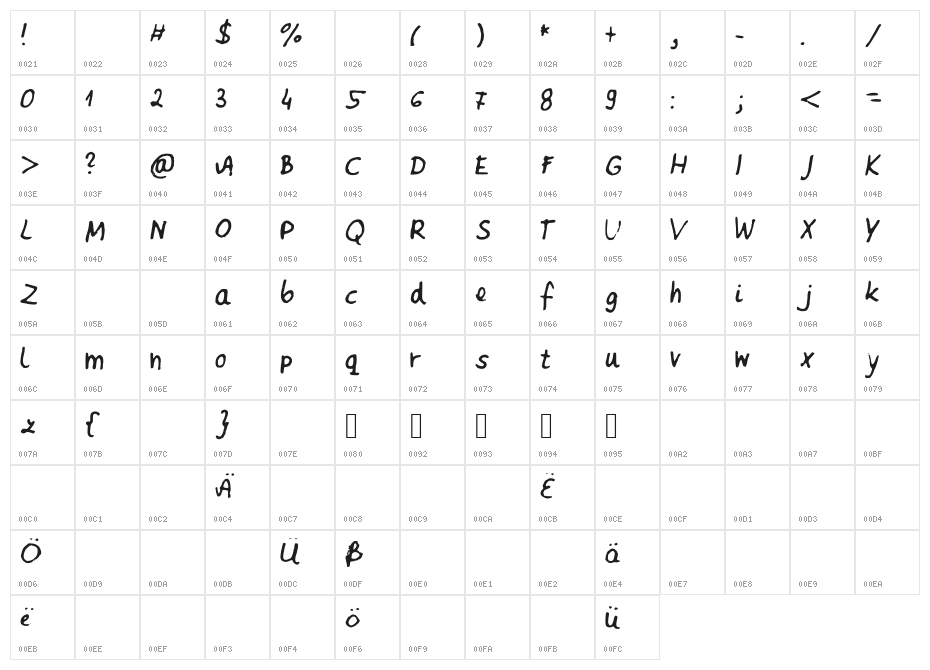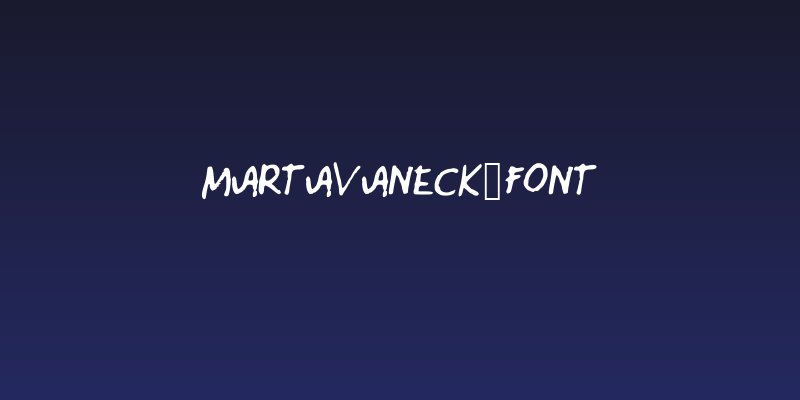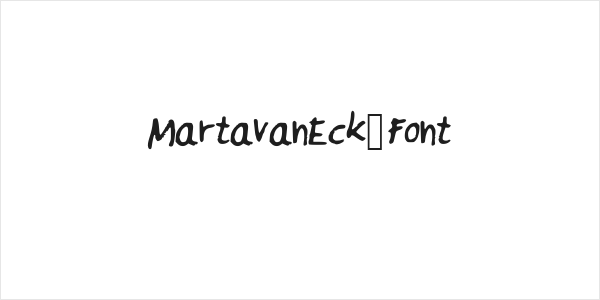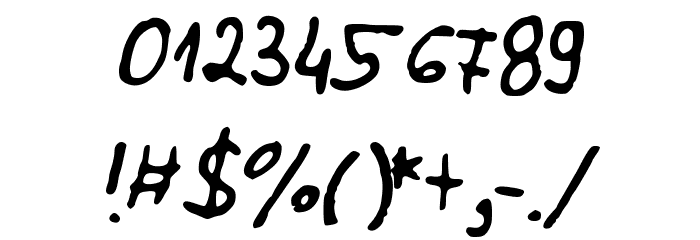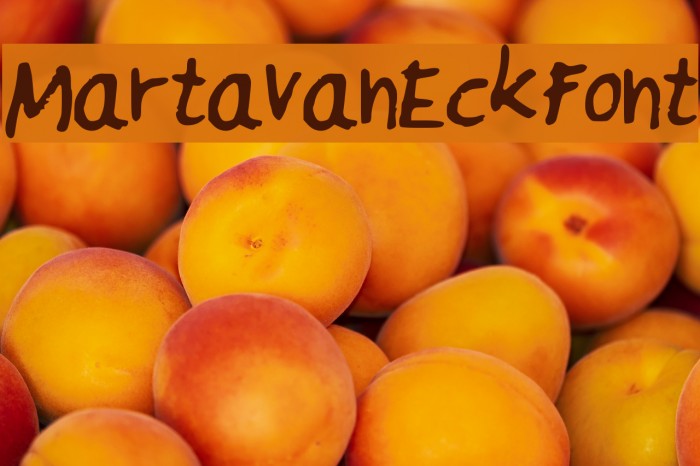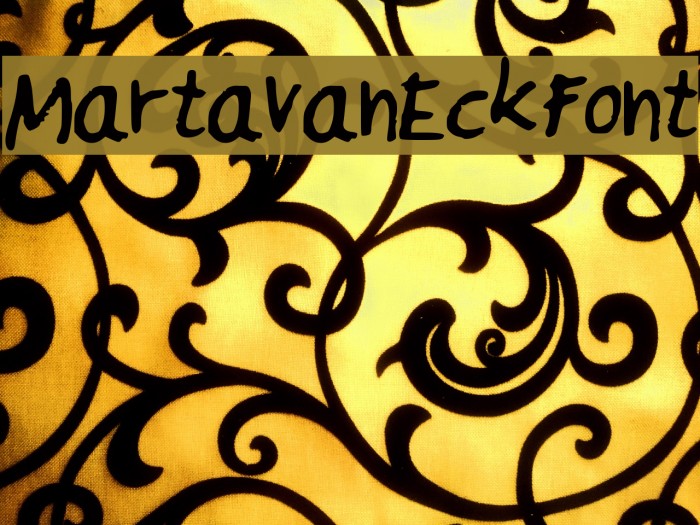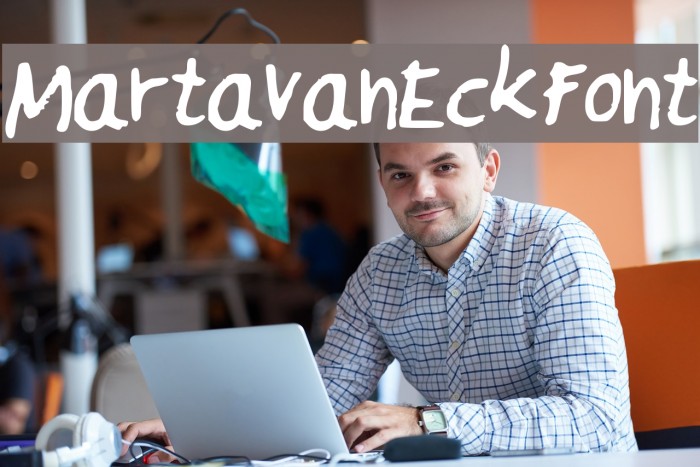
MartavanEck_Font Font
MartavanEck_Font Description
This font exhibits a playful and casual handwritten style, characterized by its irregular strokes and slightly uneven baseline. The letters have a natural flow, mimicking the look of a quick, informal script. The uppercase letters are bold and prominent, while the lowercase letters maintain a consistent size, adding to the font's readability. The numbers and special characters are crafted with the same casual flair, ensuring a cohesive appearance across all glyphs. This font's organic and friendly nature makes it suitable for projects that require a personal touch.
| Use Case | Logos, Headlines, Informal text |
| Proposed Projects | Ideal for greeting cards, personal branding, casual invitations, and social media graphics. |